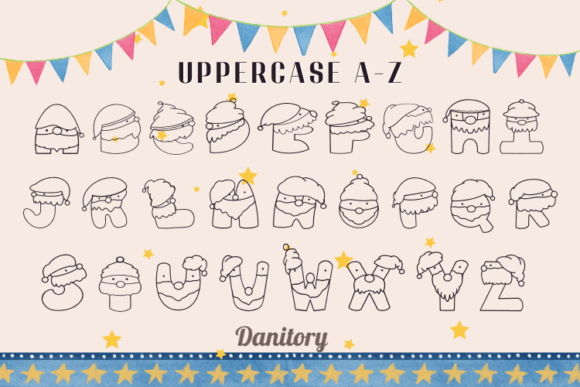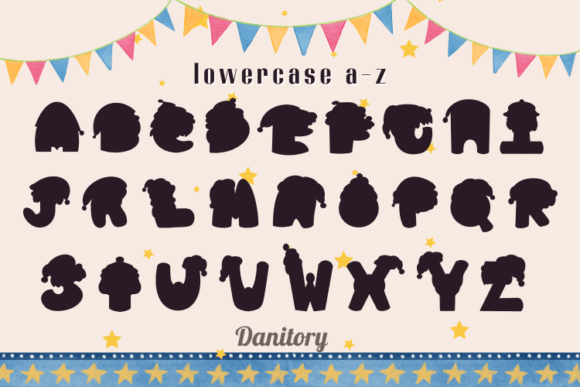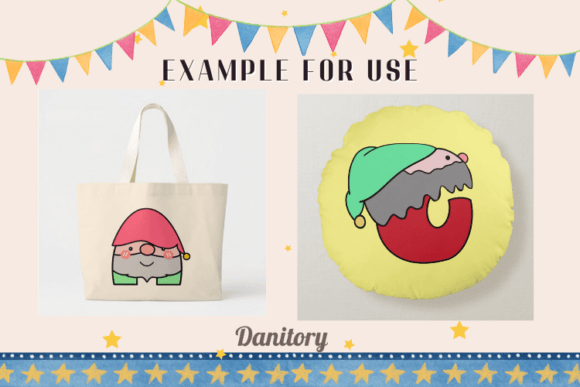
The Whimsical World of Gnome Font: Adding Playfulness to Your Designs
I still remember the time I was working on a project for a children’s birthday party invitation. I had all the design elements ready, but something was missing – the perfect font. I scrolled through countless options, but none seemed to capture the playful and cheerful vibe I was looking for. That’s when I stumbled upon Gnome Font, and it instantly became my go-to choice. With its unique blend of whimsy and charm, Gnome Font added a touch of personality to my design that made it truly special.
An Honest Review of Gnome Font
What I Love About Gnome Font
- ✨ Unique and delightful letterforms that add a touch of whimsy to any design
- ✅ Well-designed with a mix of shapes and details that create a sense of joy and creativity
- 🎉 Perfect for designs that require a lighthearted and cheerful appearance, such as greeting cards, posters, and party invitations
- 👍 Easy to read and understand, even in smaller font sizes
While Gnome Font is an excellent choice for many designs, there are a few things to keep in mind:
- ⚠️ Some letters may appear a bit irregular or uneven, which can be a minor distraction for certain designs
- 🤔 Limited availability of bold or italic variations, which may limit its use in certain contexts
A Practical Guide to Using Gnome Font
The Backstory of Gnome Font
Gnome Font was designed by a talented type designer who wanted to create a font that would bring a sense of joy and whimsy to designs. Inspired by the playful, mischievous nature of garden gnomes, the designer aimed to create a font that would add a touch of personality to any design. With its unique blend of shapes and details, Gnome Font has become a popular choice for designers and crafters alike.
Q: What is Gnome Font best suited for?
A: Gnome Font is perfect for designs that require a lighthearted and cheerful appearance, such as greeting cards, posters, party invitations, and more.
Q: Is Gnome Font available in different font weights?
A: Gnome Font is primarily available in a single font weight. However, you can experiment with adjusting the font size and style to achieve different effects.